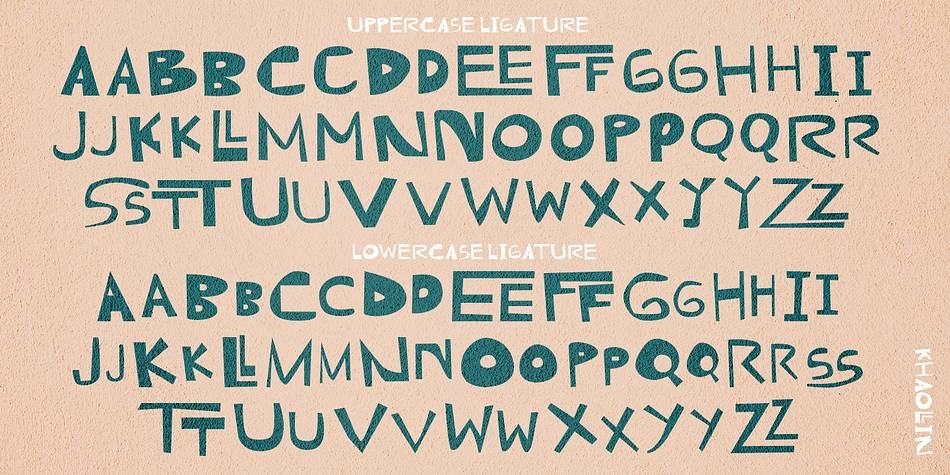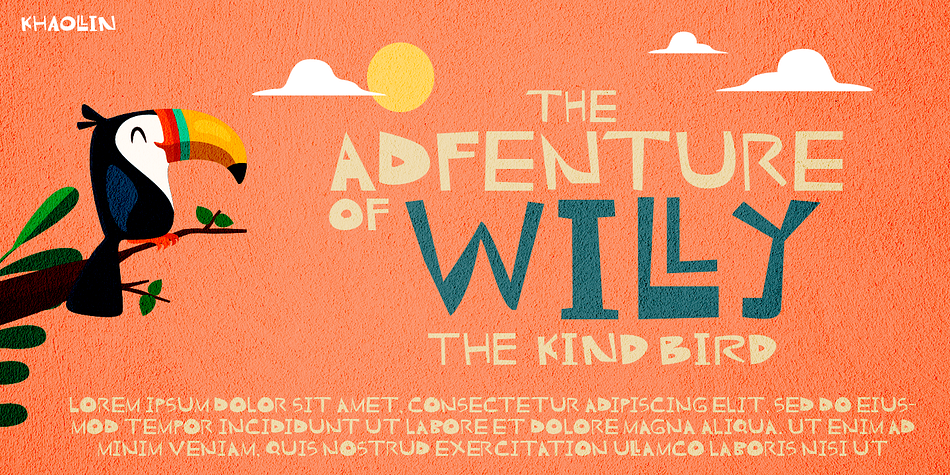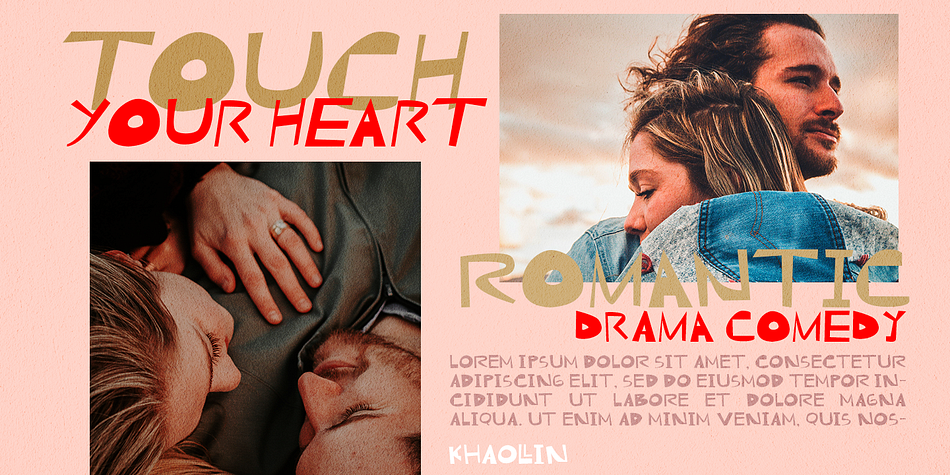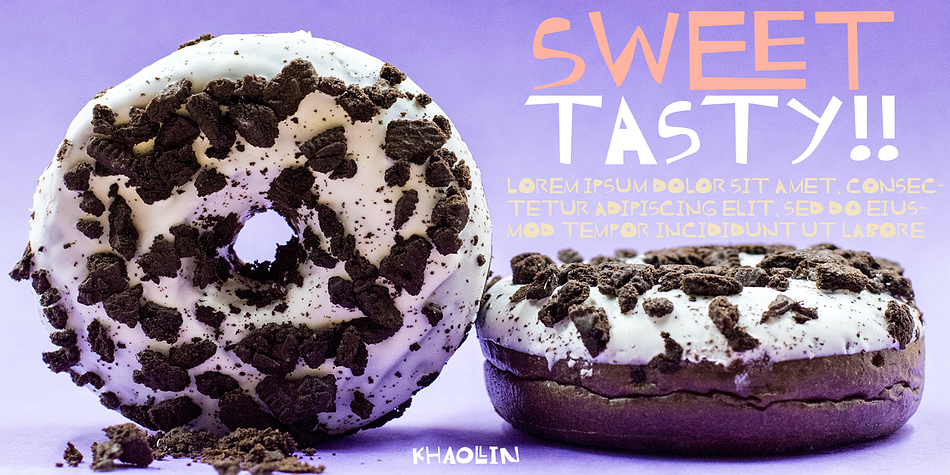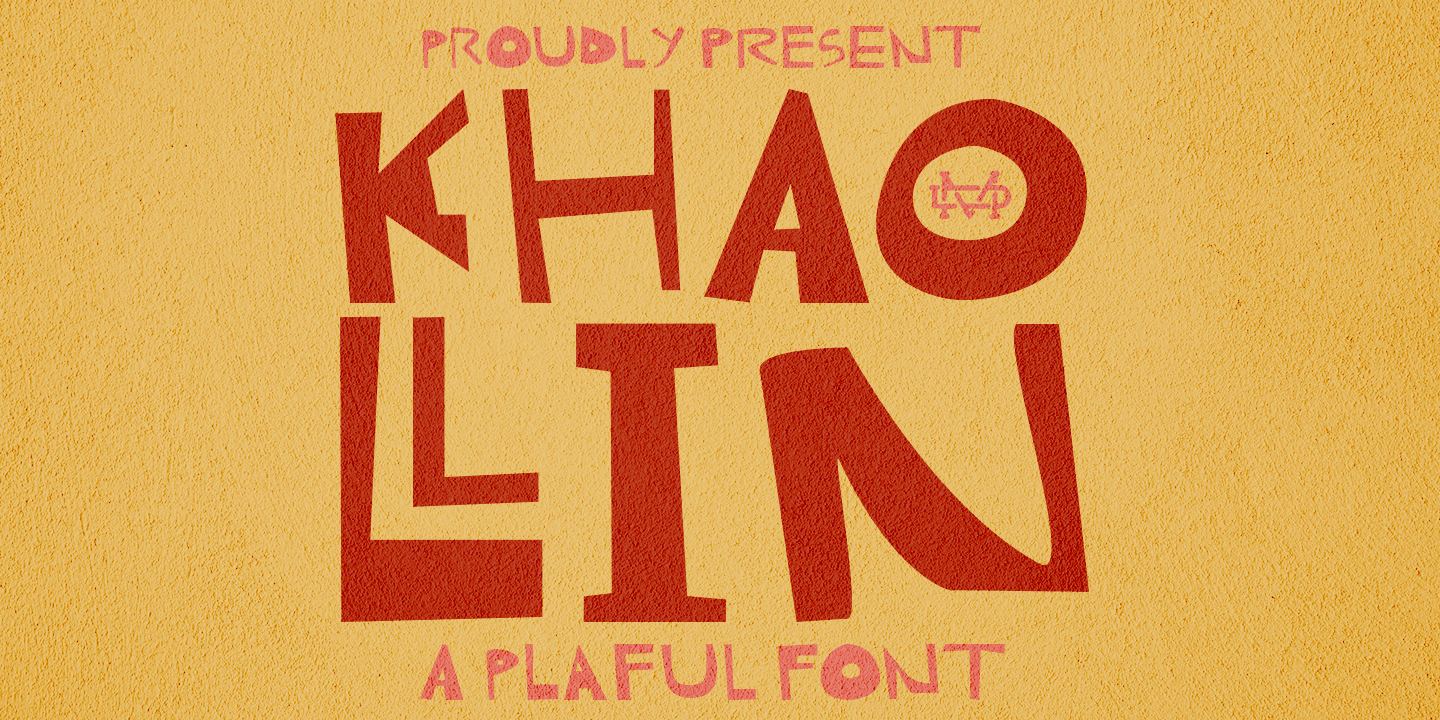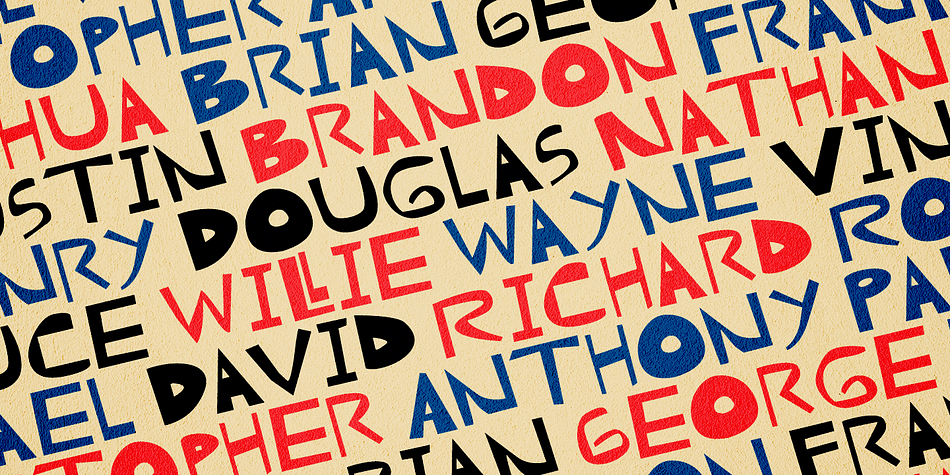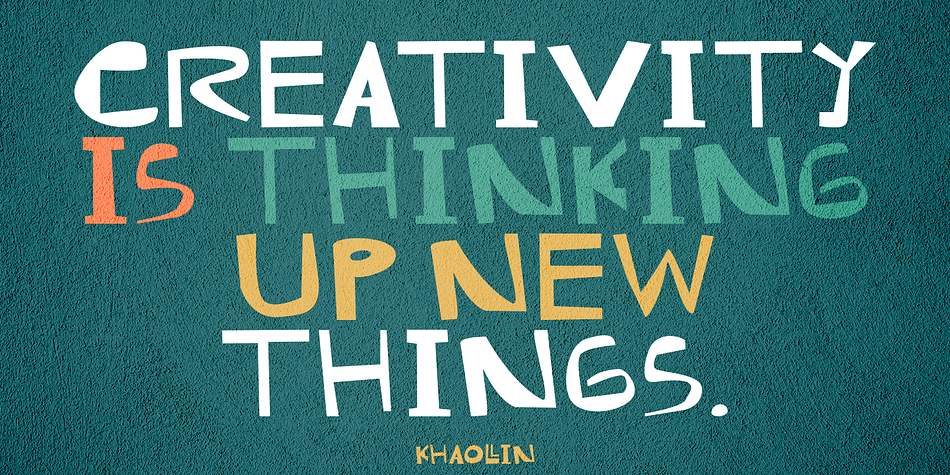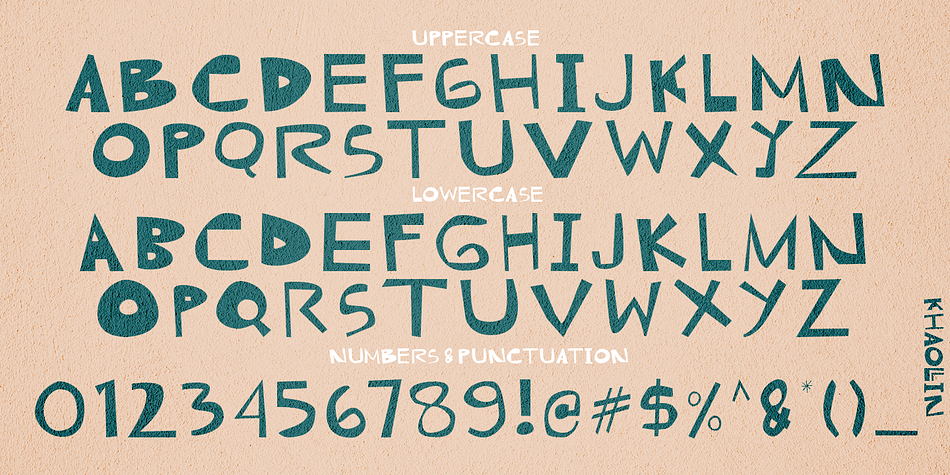
Khaollin
Designed by Suandana Ipandemade, Khaollin is an arts and crafts, hand display and kids font family published by madeDeduk.
Introducing The Khaollin is a playful font and will be perfect for book, title branding, product packaging, invitation, quotes, t-shirt, label, poster, logo etc.
- ligature